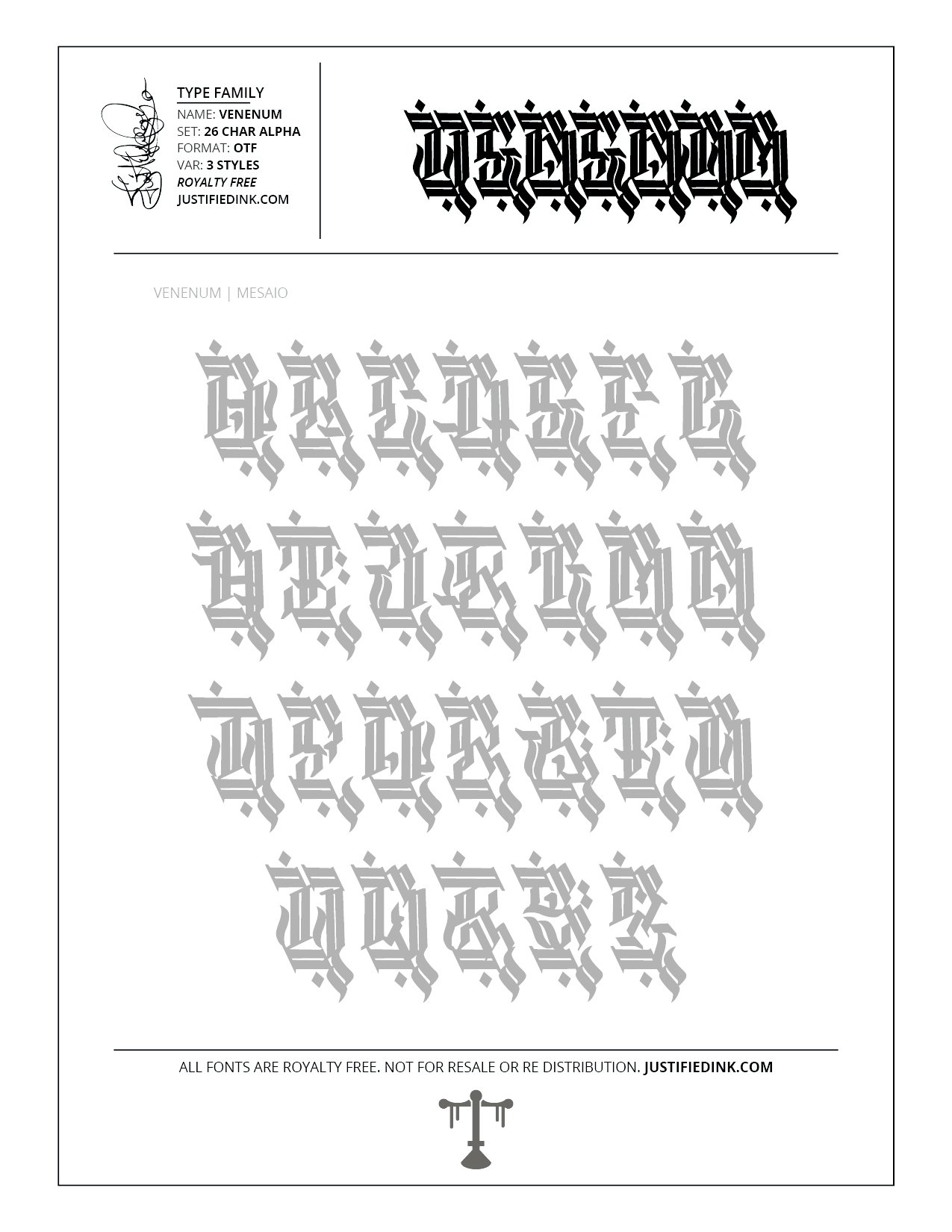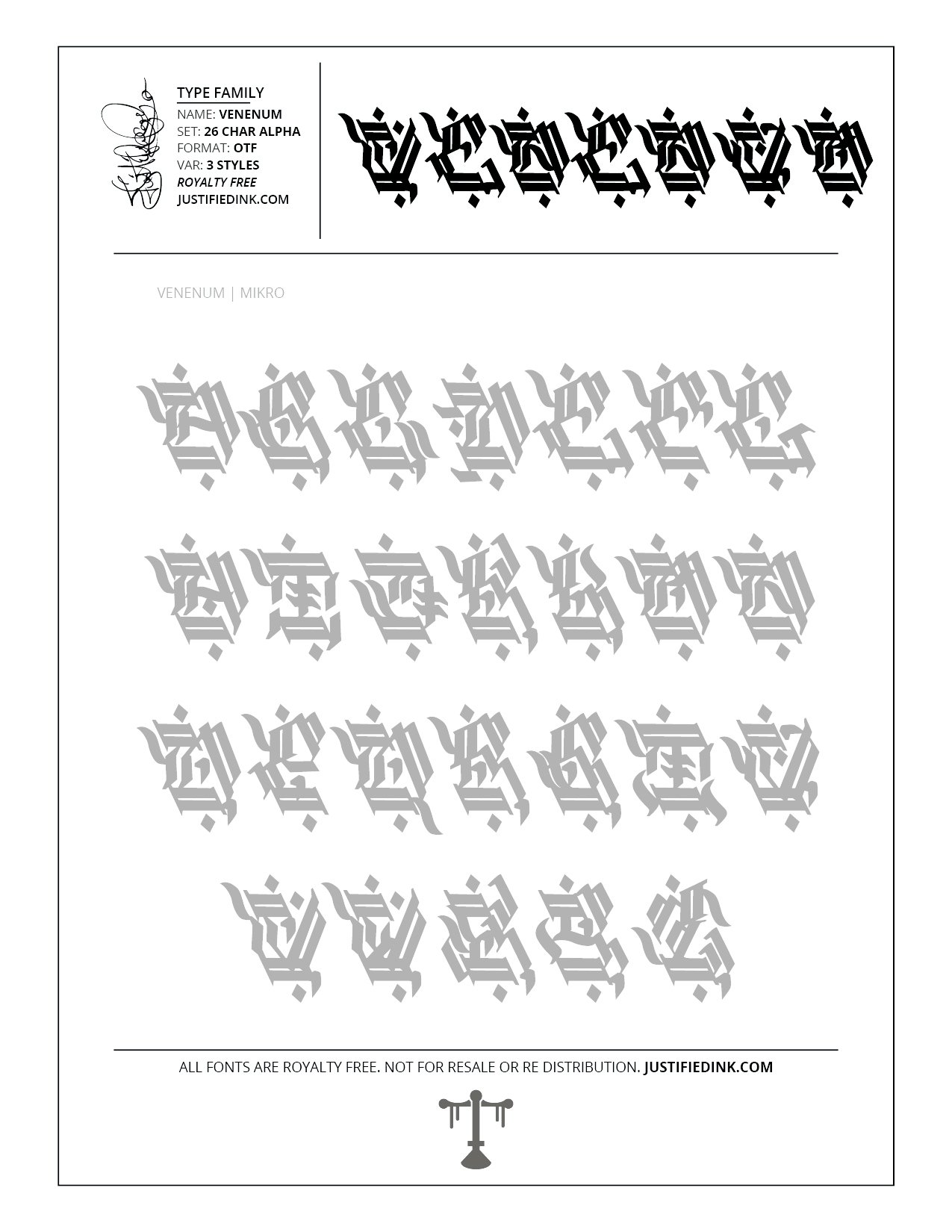
Venenum (3 styles) - Custom Font by Justified Ink
NAME: Venenum
Venenum is the "Nasty Venom Style" passed down from the ancients. There is no cure for the poison from the pen this was derived from. Use this blackletter alphabet with care. Each of the 3 styles are based in the size they are to be used in.
This font is part of the collection by Justified Ink, called Blackletter II. After 15+ years creating, I began to focus on building personal libraries of my work. The Blackletter II Collection was created through writing page after page, and countless hours over a 2 year span of daily practice. Each font from this collection has been hand drawn, manually vectored, and custom set as a type-able font. It comes in a full set of 26 char alpha. Each font family has variations in styles and/or non-alpha chars.